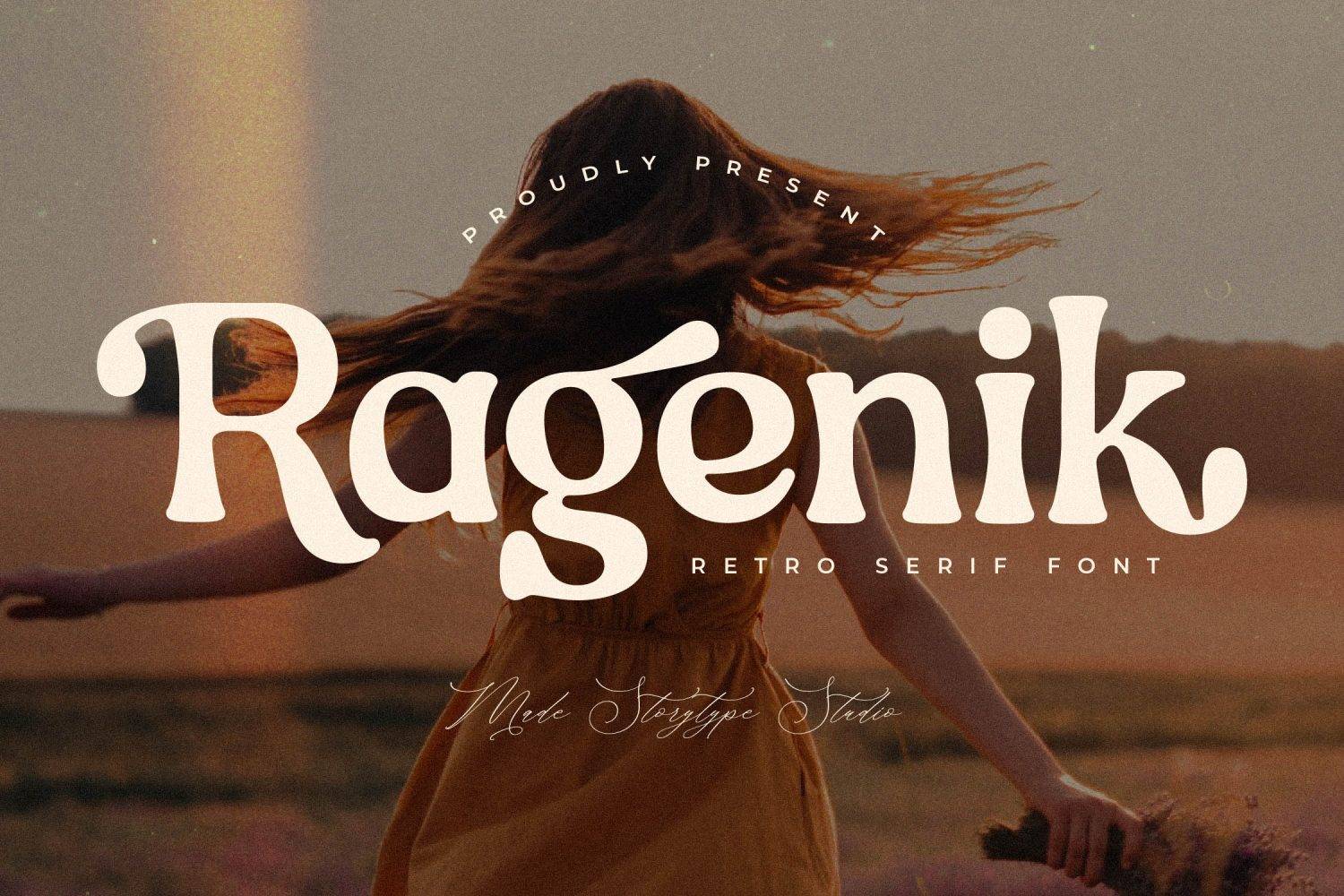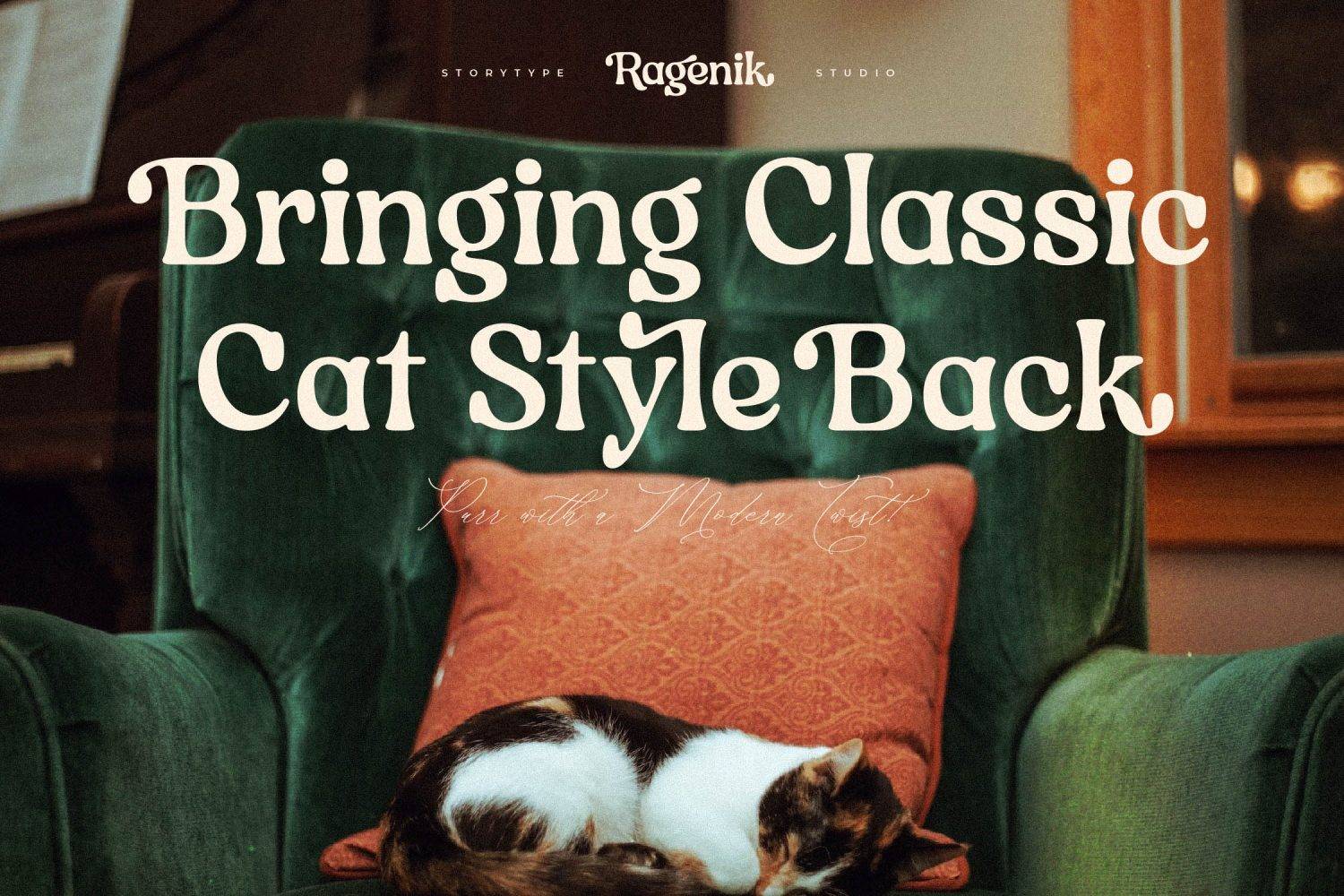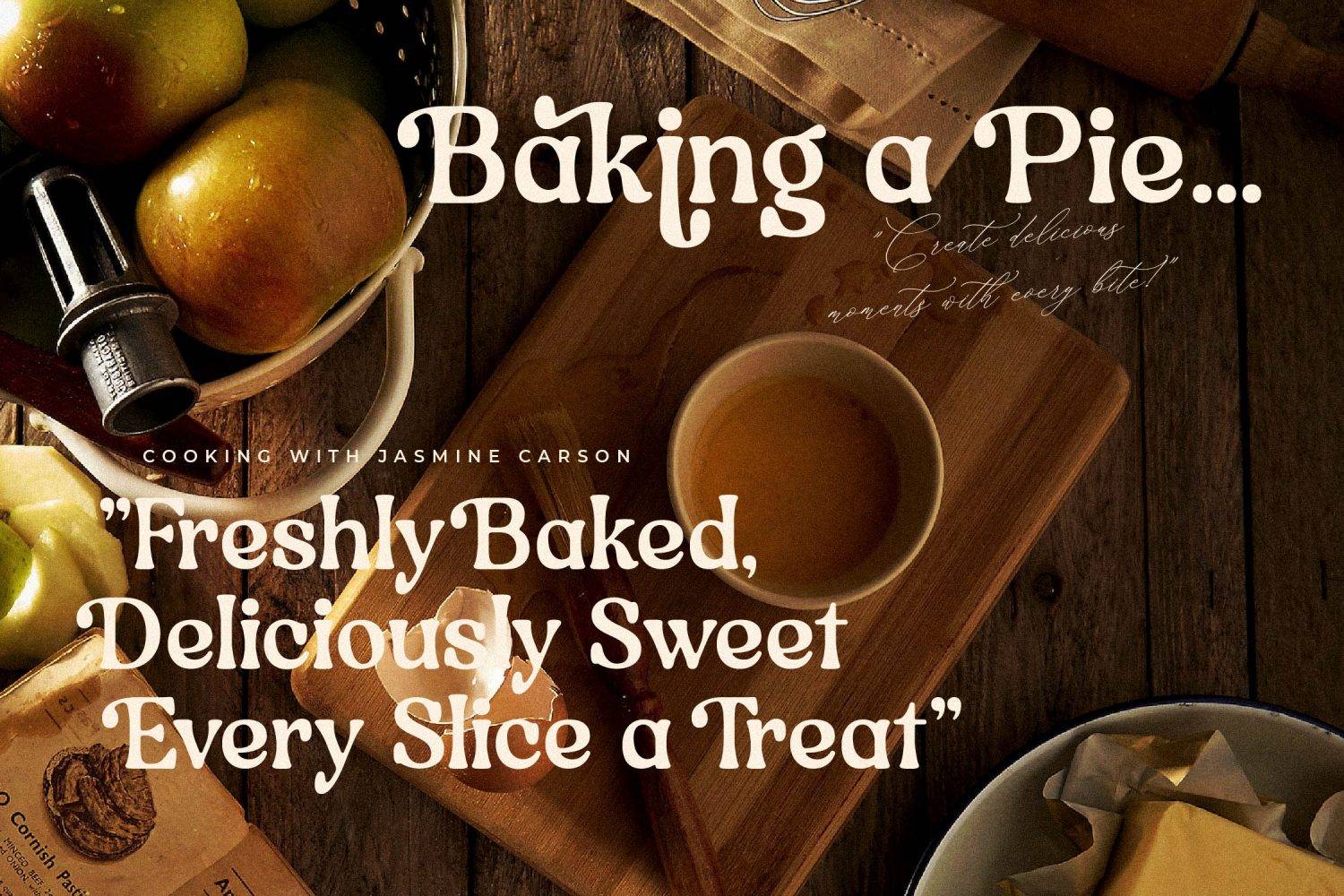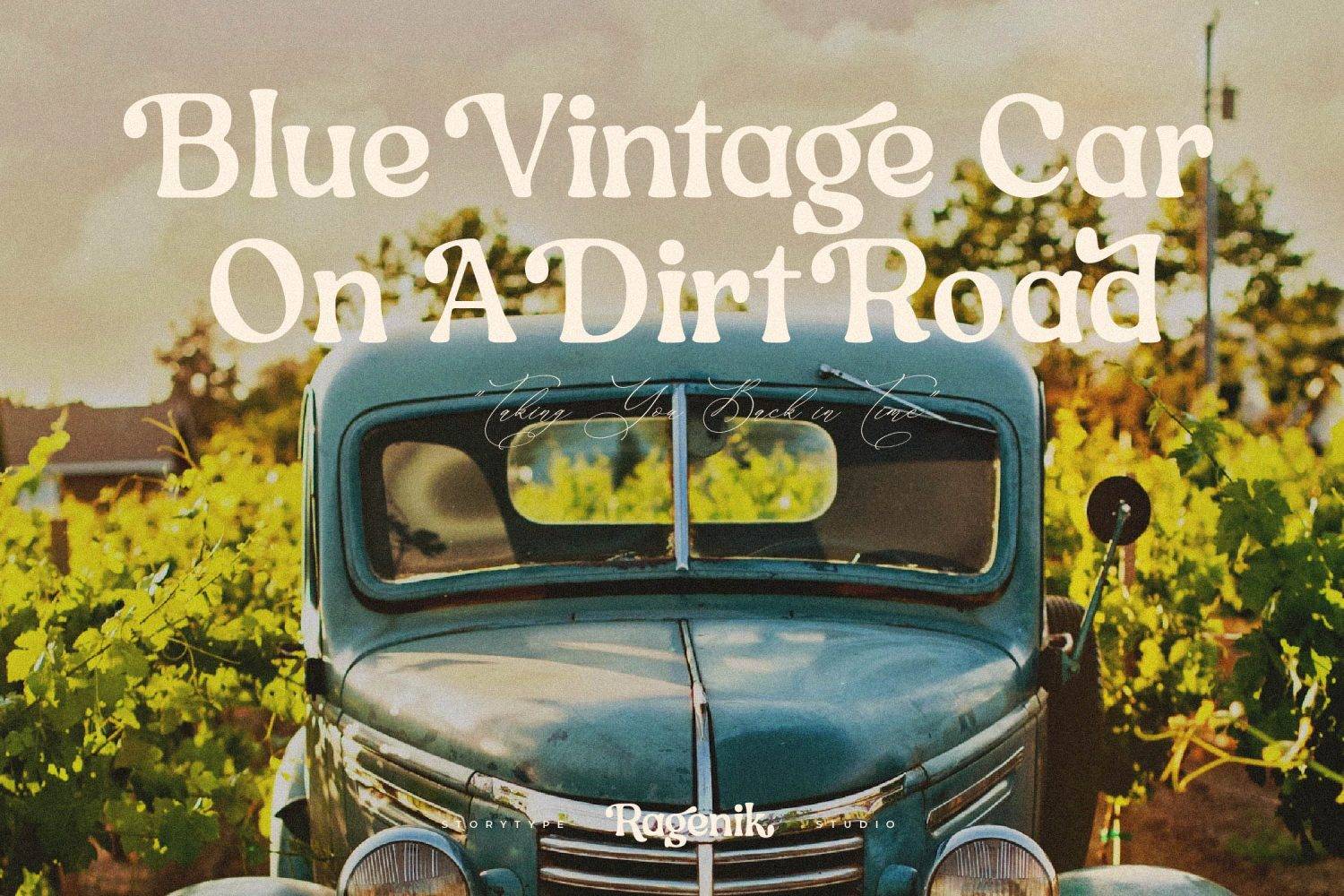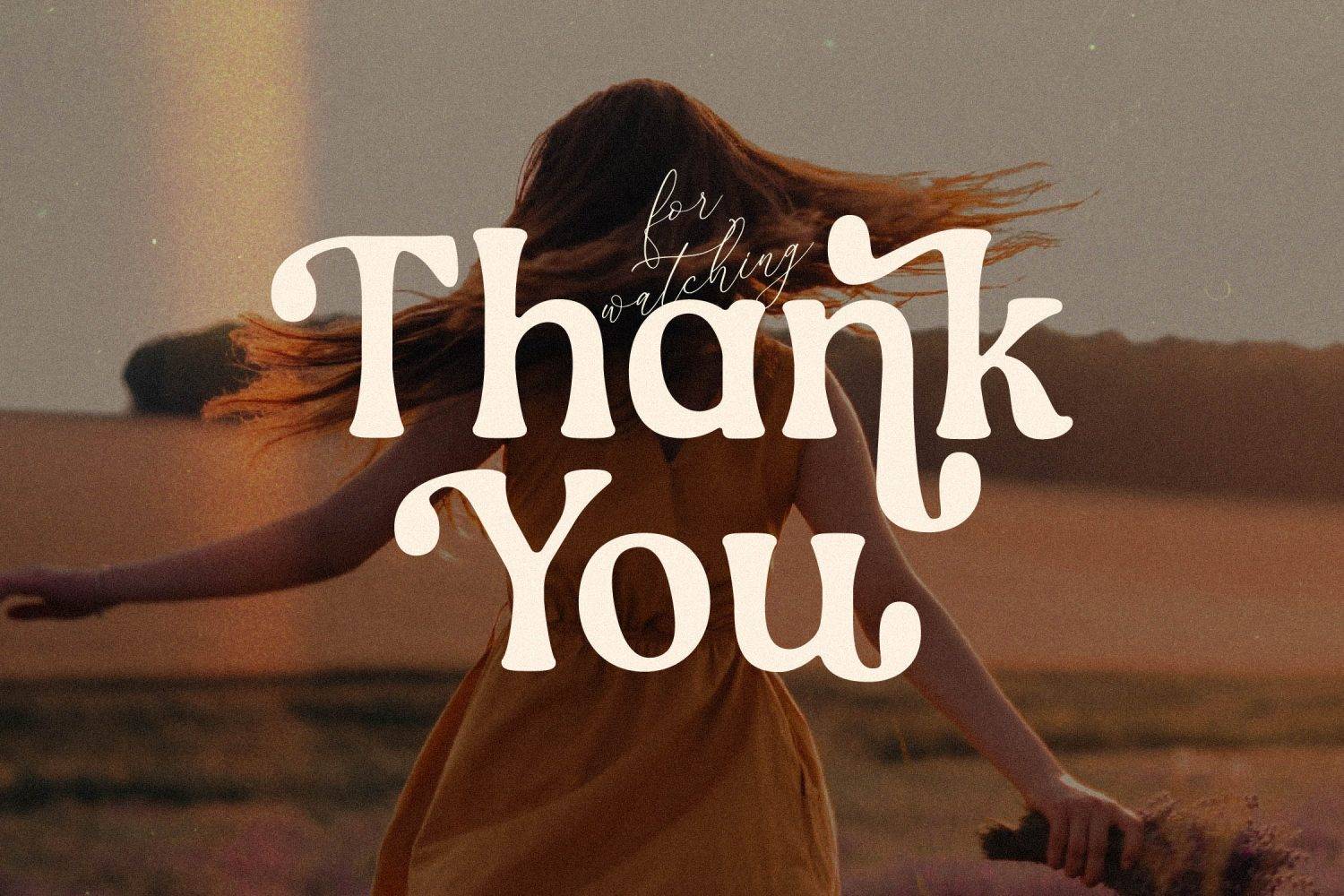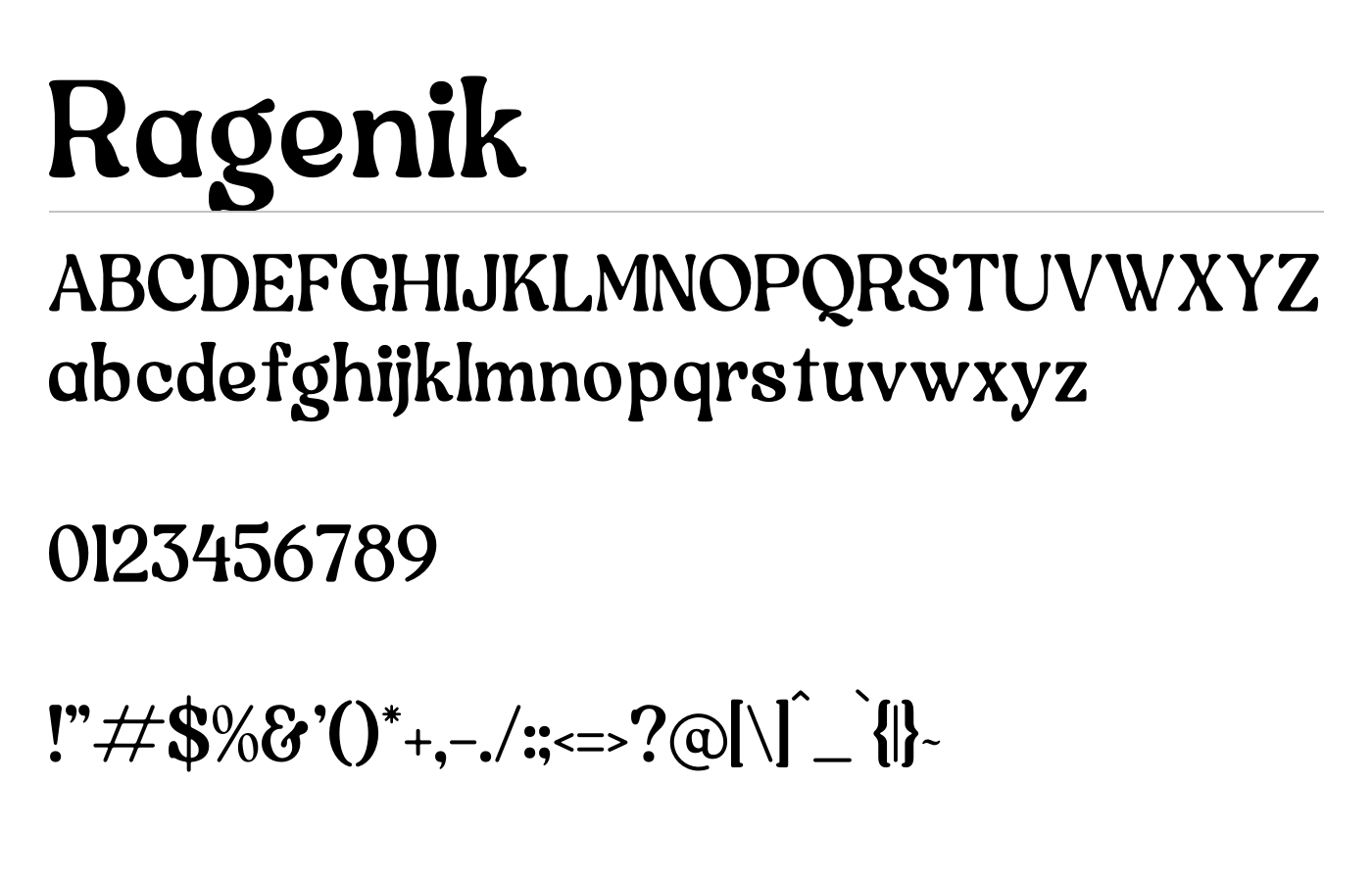
Ragenik is a charming serif font with a playful yet classic character, featuring moderate contrast and soft, slightly curved serifs that add warmth and approachability. Its gently irregular shapes and distinctive details, like the unique lowercase "g" and rounded terminals, make it perfect for creative branding, editorial headlines, and packaging that want to evoke a friendly, inviting atmosphere. This font works especially well where a blend of tradition and personality is desired, offering clear legibility without sacrificing a handcrafted feel.
Ragenik Font
About Ragenik Font